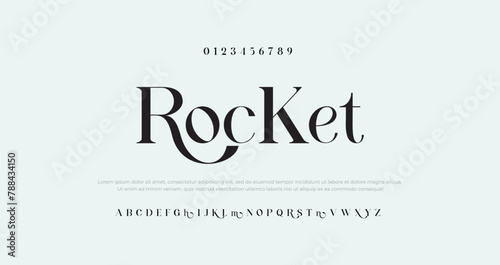
Rocket Premium luxury elegant alphabet letters and numbers. Elegant Tech typography classic serif font decorative vintage retro. Creative vector illustration